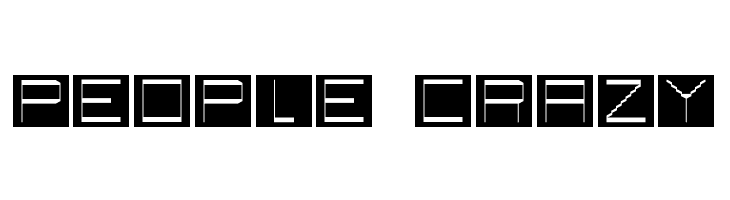
Festa Height Regular Font
- Font: Festa Height Regular
A bold, geometric outline font with a modern and industrial feel.
( Fonts by Manuel Viergutz - Typo Graphic Design - www.typographicdesign.de )